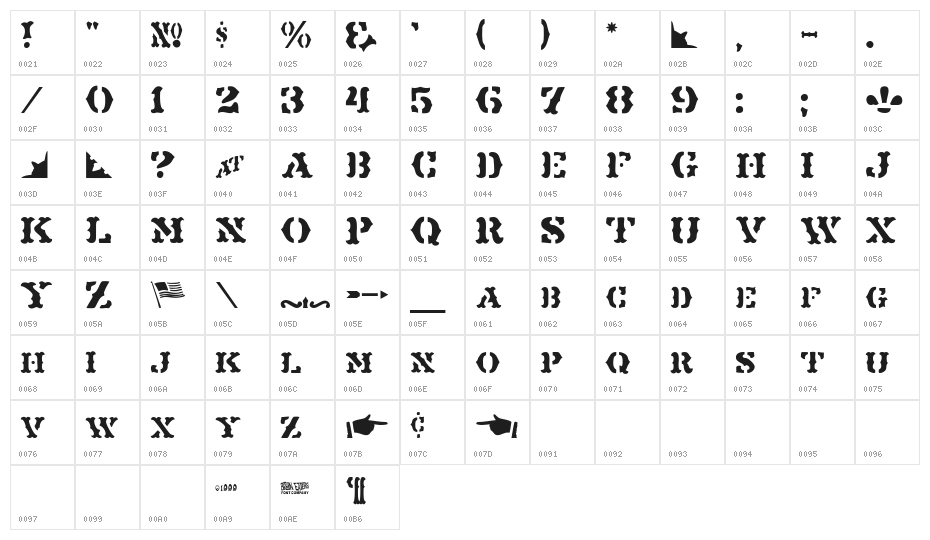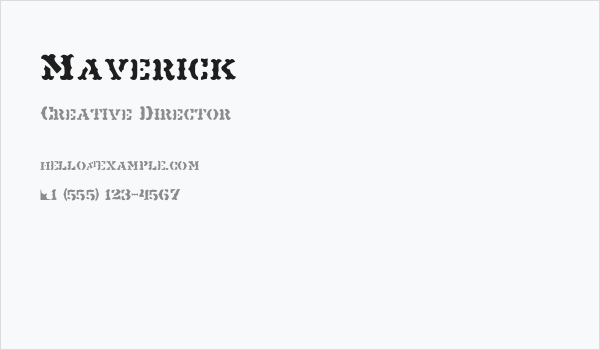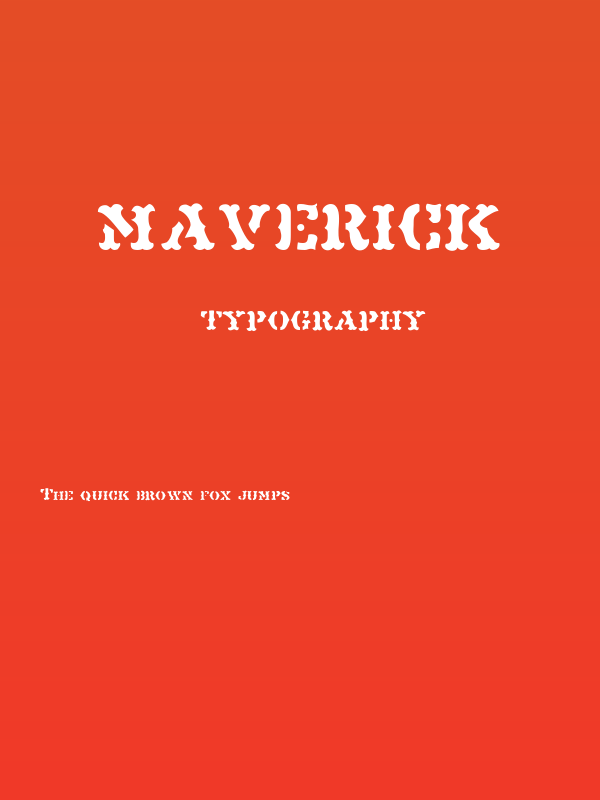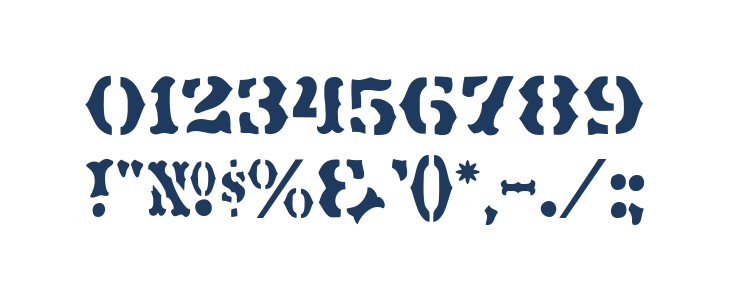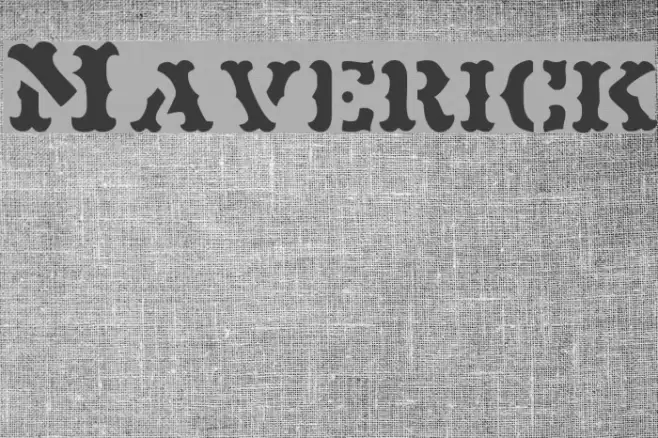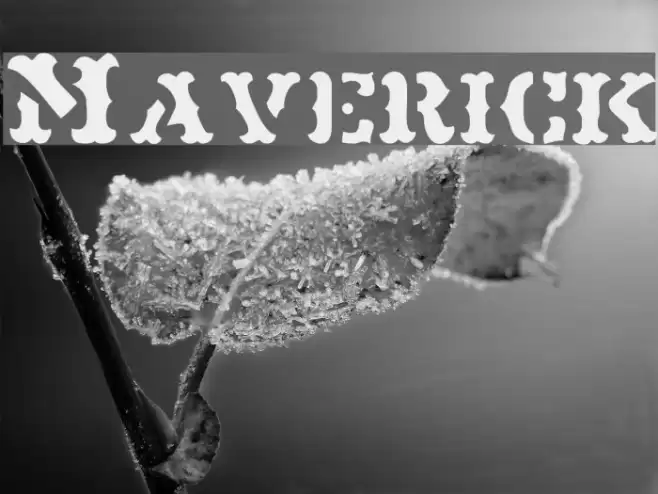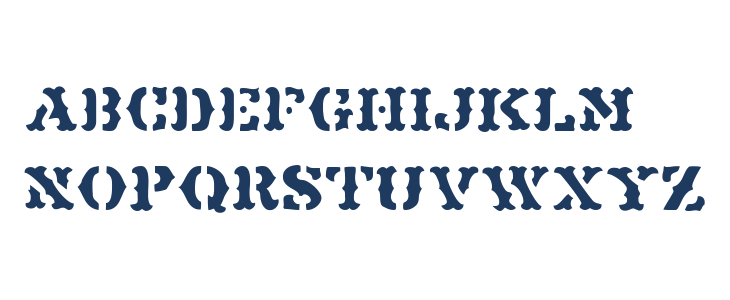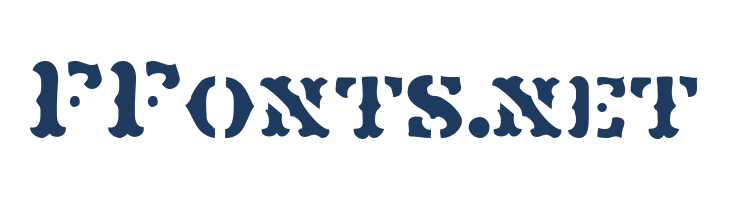
Maverick Font
This font features a bold and striking stencil design, characterized by its cut-out sections that create a rugged and industrial aesthetic. The uppercase and lowercase letters maintain a consistent style, with sharp angles and a robust presence. The numbers and special characters follow the same design principles, ensuring uniformity across all glyphs. This font's unique style makes it ideal for projects that require a strong visual impact, such as posters, signage, and branding materials. Its bold weight and high contrast between the thick strokes and the cut-out spaces enhance its readability and visual appeal.
| Overall Style | Industrial, Rugged |
| Use Case | Headlines, Logos, Signage |
| Proposed Projects | Ideal for posters, signage, branding, and any project needing a strong visual impact. |